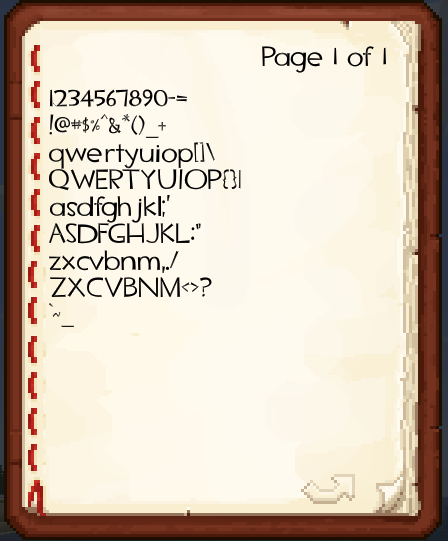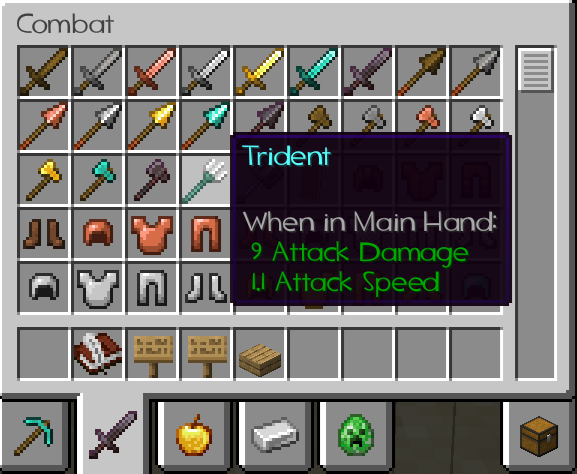
TF2 Secondary Font
TF2 Secondary font from Team Fortress 2, provided in TrueType format. Supports Caxton.
Sample text in a book
Settings menu
Text on a sign
Warning on an item
Weapon description
Sample text on hanging signs